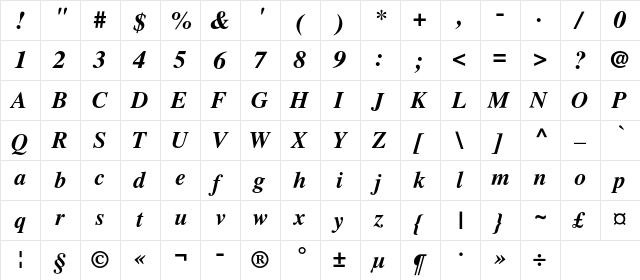
LatinskijC Bold Italic Font Preview
Design Context for LatinskijC Typeface
LatinskijC takes a measured approach to typography — its balanced proportions and neutral character make it a reliable workhorse for both digital and print work. Its italic angle brings a sense of urgency and motion to the letterforms. The heavy weight commands attention and anchors typographic hierarchies.
Pro Tip: Try LatinskijC for annotation and caption copy alongside an upright companion — the contrast in angle creates a dynamic but ordered typographic system.